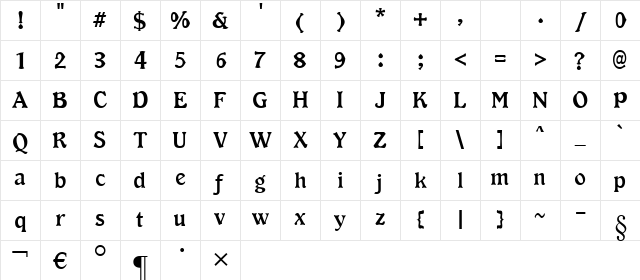
GIST-TMOTHeena is a composed and adaptable typeface that performs quietly and consistently across a wide range of design contexts. Its bold stroke weight gives it real presence on the page.